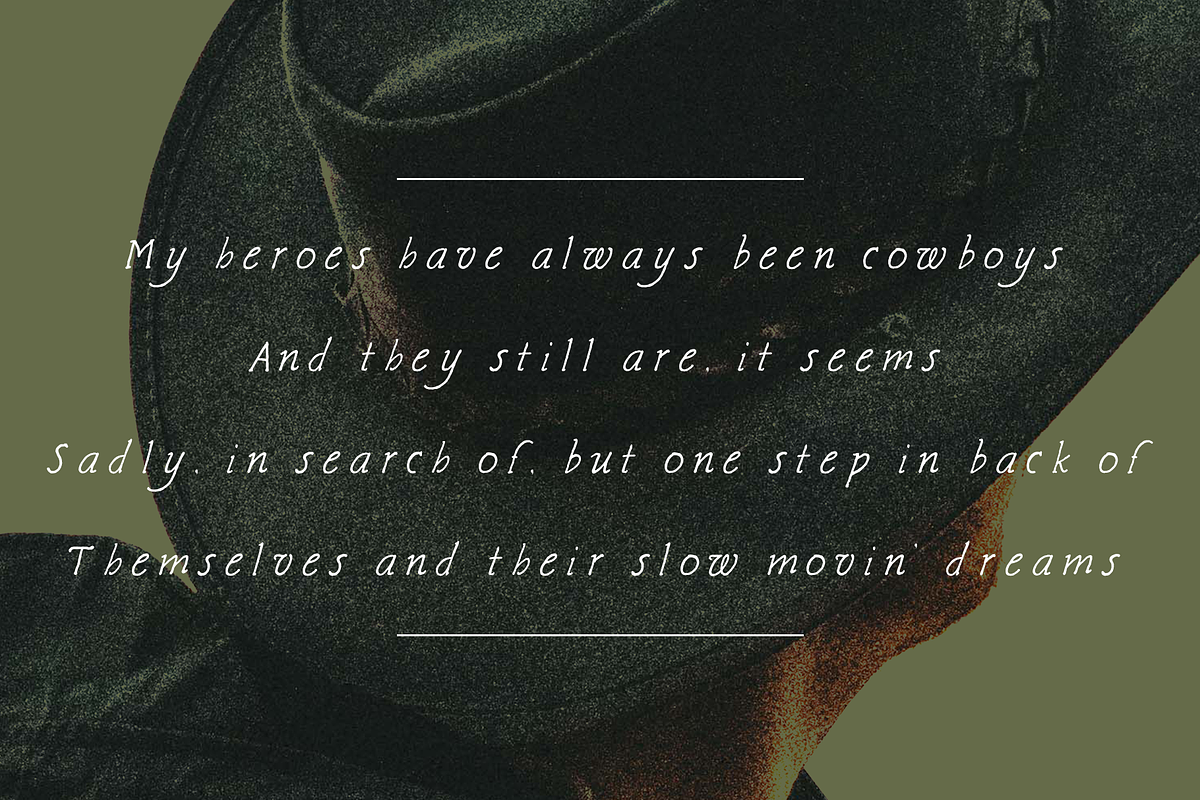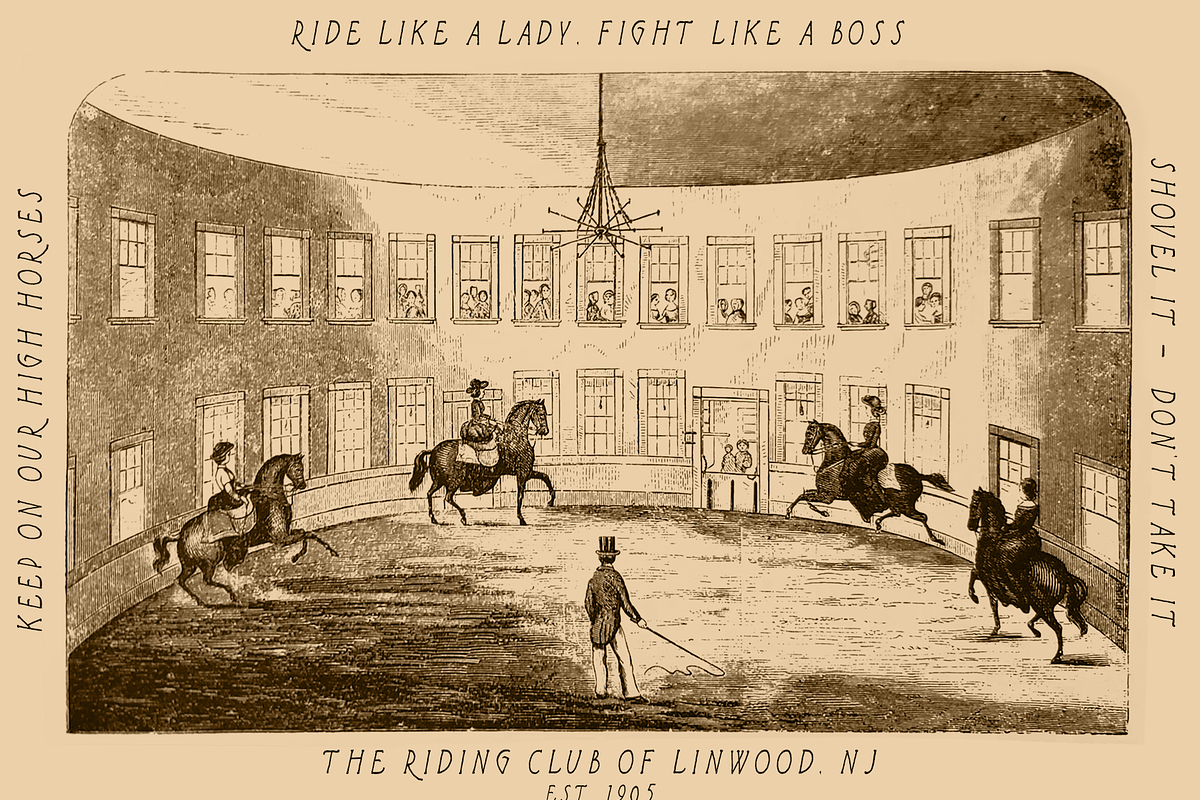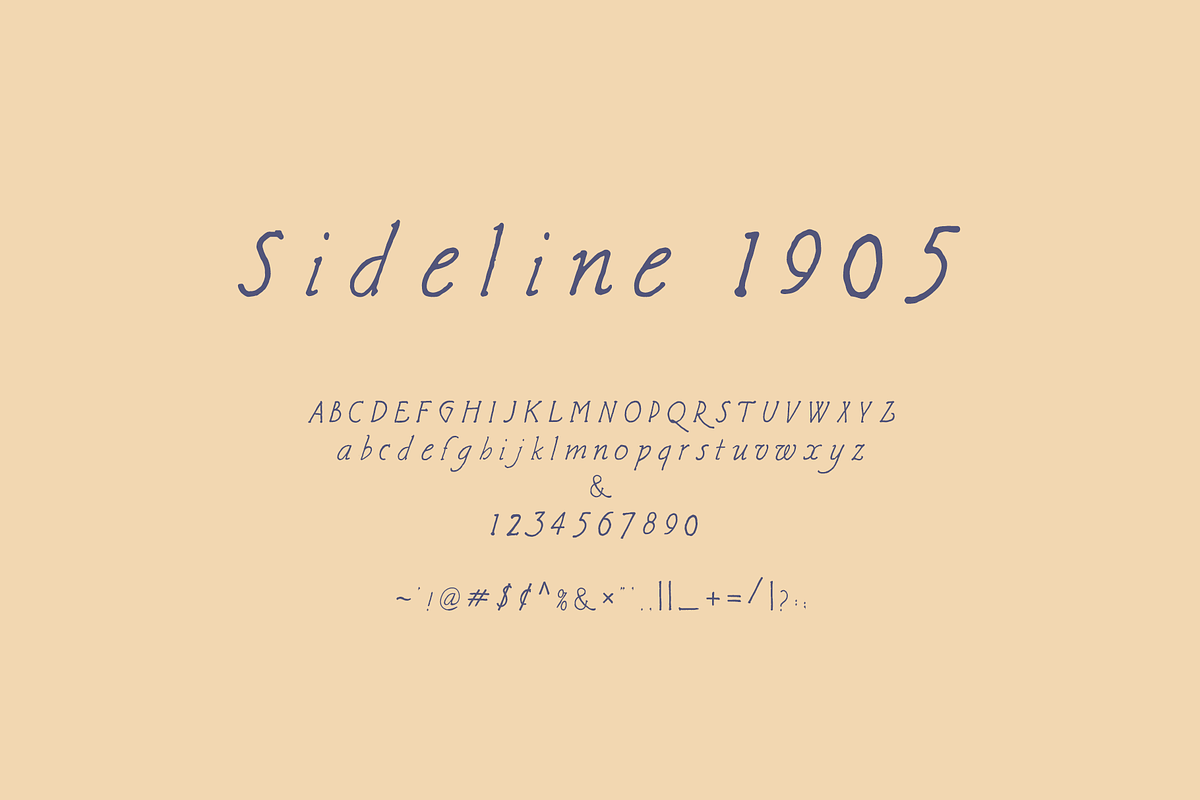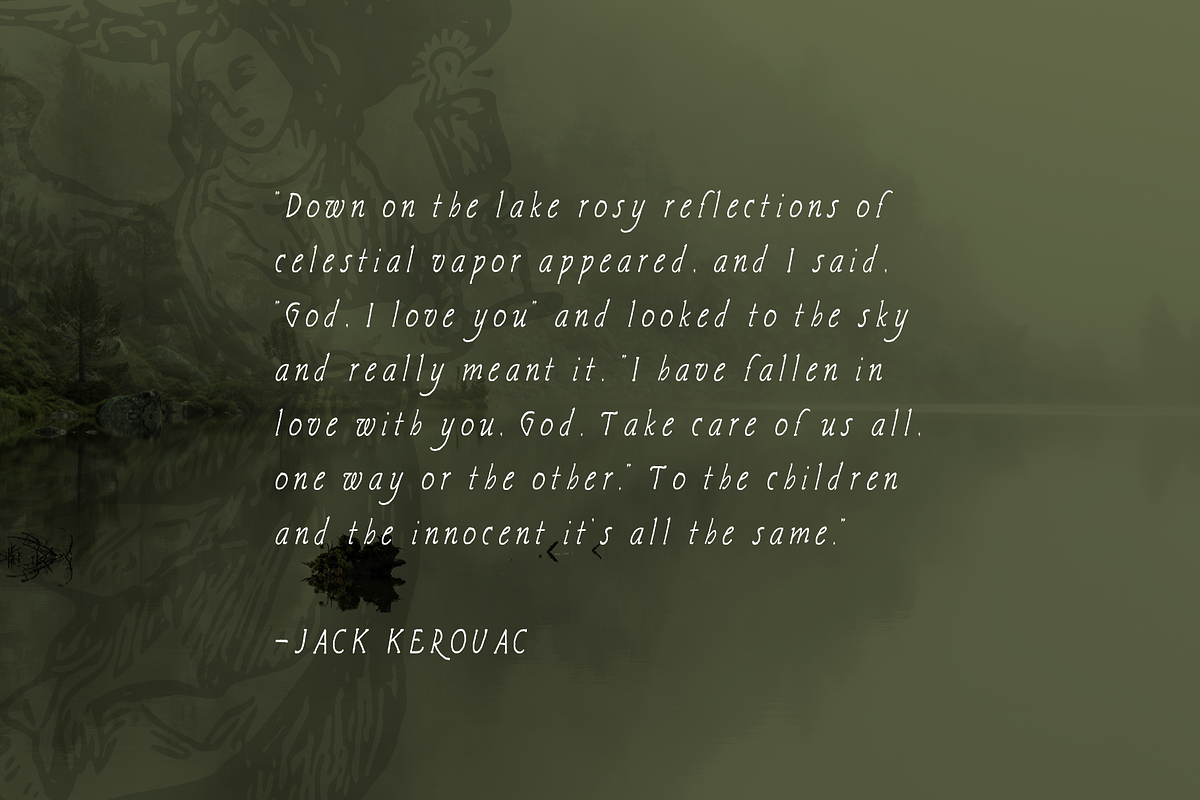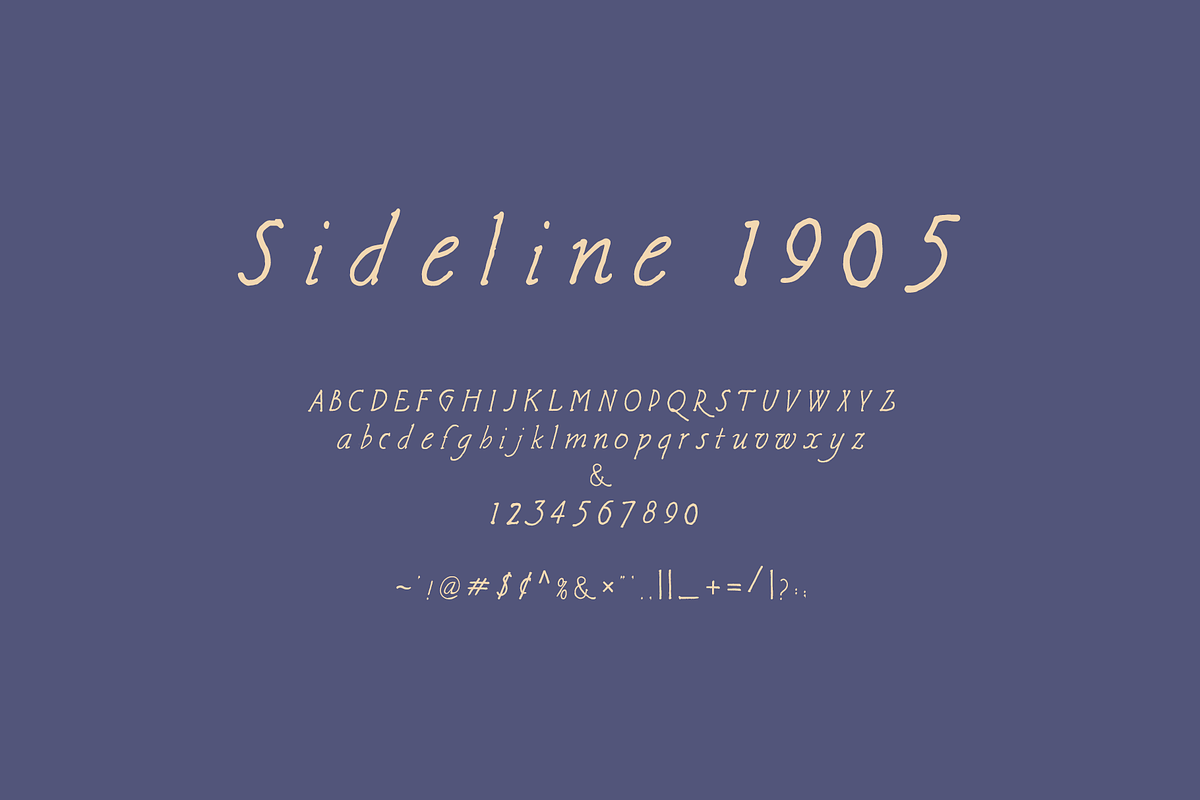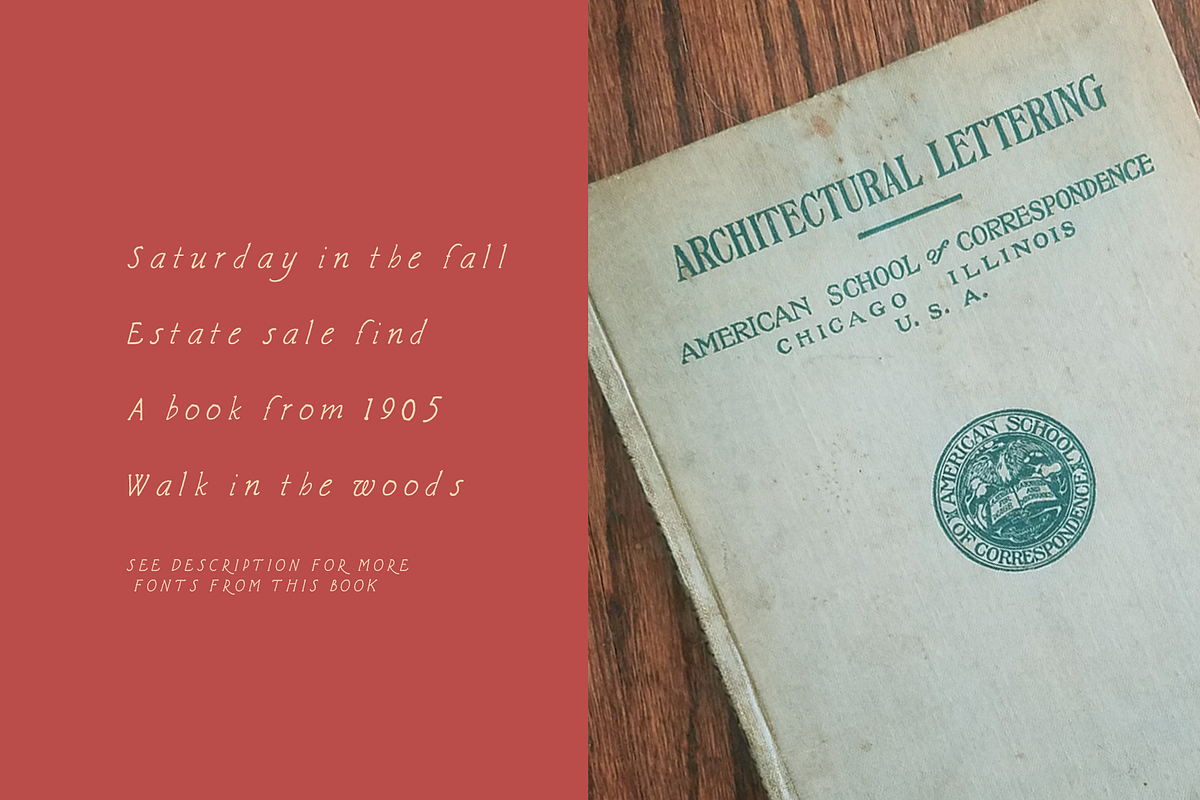
Sideline 1905 Authentic Vintage Font
A truly vintage font perfect for your heritage maximalism branding.
Sideline 1905 is the third font in a series I'm archiving from an old architectural correspondence course book I found one fateful day while estate sale shopping with my wife.
I use this font in my work specifically when I'm looking for a hand-drawn feel that doesn't feel overly-perfected and kind of feels like it could been seen on a Wild Bill advertisement, know what I mean?
I like to think of the ad copy that was written in the margins of images or the neatly lettered correspondences between the east and the west - this font is truly a great balance of romantic and restrained. It rides the line well and proves itself versatile once you get to know it.
Suggested use: women's suffrage newsletters, camp tees, social post overlays.